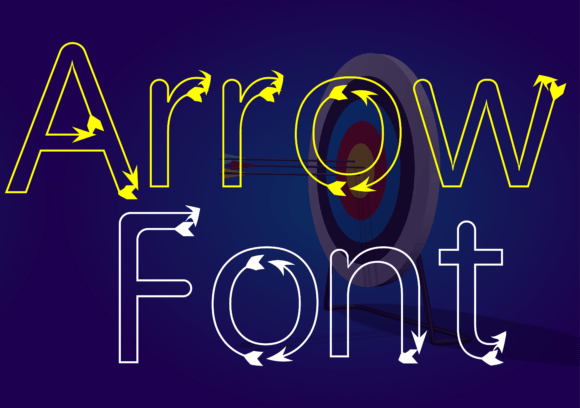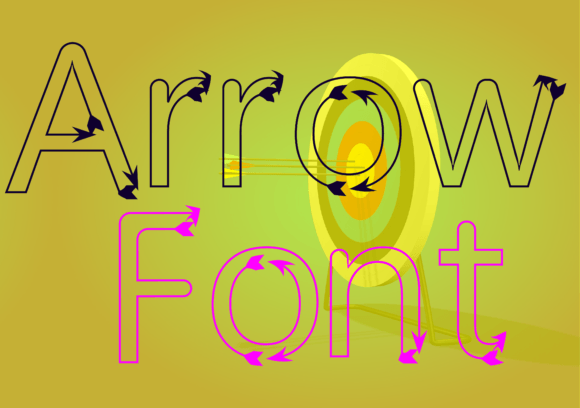
The Power of Direction: Unleashing the Creative Potential of Arrow Font
Have you ever stared at a blank page, trying to come up with the perfect design concept, only to have a burst of inspiration strike when you grab a marker and start doodling arrows? For many designers, arrows are more than just a simple symbol – they represent movement, energy, and direction. It’s this creative spark that inspired the development of Arrow Font, a unique display font that incorporates arrow symbols into its character set.
Arrow Font is designed to help designers like you add an extra layer of visual interest and meaning to your work. Whether you’re creating a flow chart, illustrating a process, or simply adding some flair to a text string, Arrow Font has got you covered. By incorporating arrow symbols into your design, you can convey complex information in a clear and concise way, making it a valuable tool for designers of all levels.
Arrow Font Key Features
- Font Family: Arrow Font is a sans-serif font family with a unique, modern design.
- Unique Characteristics: Features a distinctive arrow-like shape in the letter “A” and other letters, giving it a modern and edgy feel.
Arrow Font Review
Overall, I think the Arrow Font has some great qualities that make it a solid choice for certain designs. ✨
- Unique and distinctive style that can help draw attention to headings and titles
- Sharp and clean lines that make it perfect for modern and minimalist designs
- Works well in both uppercase and lowercase letters, making it versatile for various use cases
- Supports a wide range of languages, making it a great option for global projects
However, there are some limitations to consider. ⚠️
- Can be difficult to read in smaller sizes, which may limit its use in body text
- May not be the best choice for designs that require a more traditional or classic look
- Lacks some of the finer details and nuances that make other fonts feel more premium
Overall, I think the Arrow Font is a great choice for designers who want a modern and attention-grabbing font for their headings and titles. While it may not be the best choice for every project, it’s definitely worth considering for the right use cases.
Getting the Most Out of the Arrow Font
To get the most out of the Arrow Font, try using it in creative ways such as:
Creating arrows to point to important information or highlight key points.
Using the font to create visually appealing headings or titles.
Experimenting with different font sizes and colors to add emphasis and visual interest.
The Arrow Font is commonly used in:
Infographics to point to key statistics or information.
Presentations to highlight key points or emphasize important information.
Design projects to add a creative and modern touch.
Alternatives to Arrow Font for Designers
Montserrat is a sans-serif font designed for digital use. It’s ideal for use in logos, titles, and body text in modern designs. Montserrat is a great alternative to Arrow Font because it offers a similar clean and modern aesthetic, but with a more versatile and highly-legible design.
Inter is a sans-serif font designed for digital use. It’s a modern and highly-legible font that’s suitable for a wide range of applications, from body text to titles. Inter is similar to Arrow Font in its clean and modern design, but it offers a more nuanced and sophisticated feel.
Open Sans is a sans-serif font designed for digital use. It’s a highly-legible font that’s suitable for body text and titles in modern designs. Open Sans is similar to Arrow Font in its clean and modern design, but it offers a more neutral and understated feel.